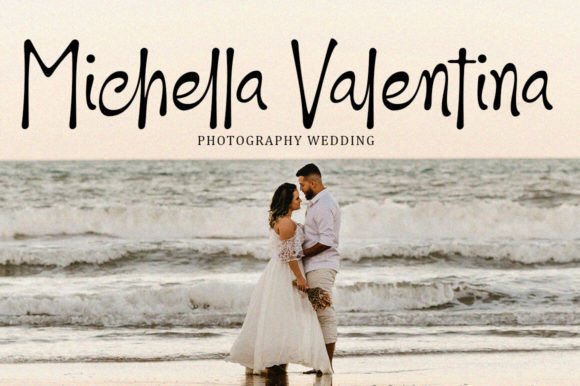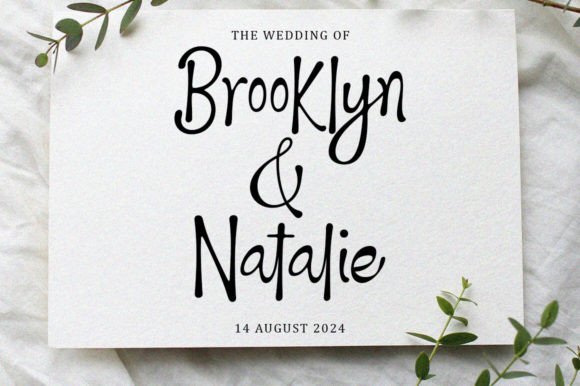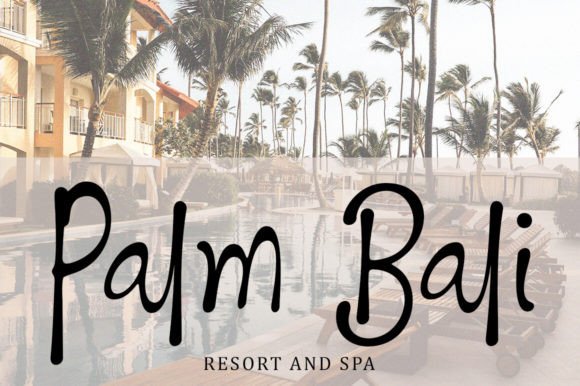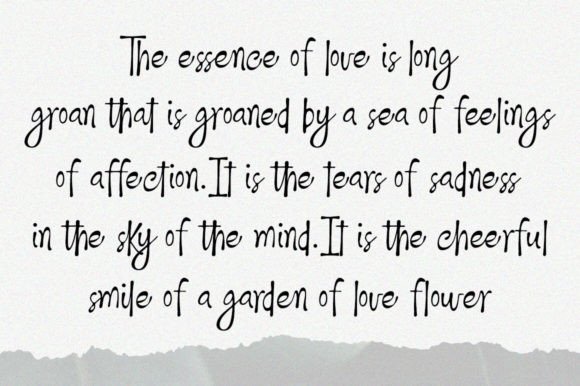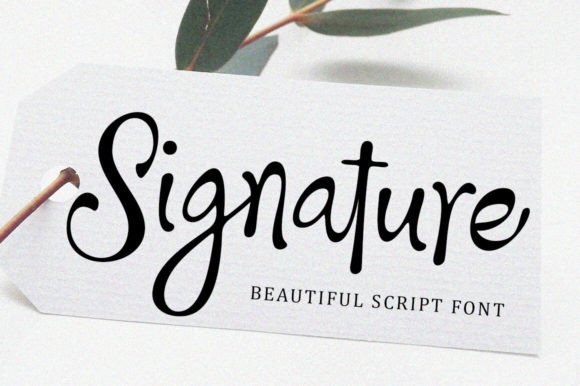
The Power of Handwritten Charm: Introducing Authentic Signature Font
Have you ever stared at a beautiful piece of art, trying to capture the essence of the brushstrokes that brought it to life? That’s exactly the magic we’re aiming for with the Authentic Signature Font. This lovely and timeless handwritten font is designed to add a personal touch to your designs, making them truly unforgettable.
| 👤 Author | Romie Creative |
Authentic Signature Font is more than just a font – it’s a way to express your unique voice and style. Whether you’re creating a logo, branding, or a quote, this font will bring a sense of authenticity and warmth to your work. Its unique, beautiful touch will make your design come alive, setting it apart from the crowd.
For designers, the Authentic Signature Font is a valuable tool in their creative arsenal. It offers a level of customization and personality that’s hard to find in other fonts, allowing you to create truly one-of-a-kind designs that reflect your vision and style.
Authentic Signature Font Key Features
- Character Count: 400+ unique characters, including Latin, Cyrillic, and Greek alphabets
- Size: 4 styles: 24pt, 36pt, 48pt, and 60pt, each with 5 weights (Thin, Light, Regular, Bold, Black)
- Unique Characteristics: Authentic, handwritten feel with subtle imperfections and texture, perfect for personal and business signatures
- Resolution: High-resolution fonts, suitable for print and digital use, including social media profiles and websites
- Font Width: Adjustable width, allowing for customization to fit any signature or text area
Authentic Signature Font Review
I recently had the chance to work with the Authentic Signature Font, and here’s my honest take on it.
- Unique and Creative Touch: This font offers a unique, handwritten feel that can add a touch of personality to your designs.
- High-Quality Design: The font is well-designed, with smooth lines and a consistent aesthetic that makes it perfect for logos, quotes, and other typography-heavy projects.
- Limited Font Options: While the font itself is unique, the overall design is relatively simple, which may limit its versatility in certain projects.
- Lack of Variations: The font comes in a limited range of weights and styles, which may not be suitable for complex or detailed designs.
- May Not be Suitable for Small Text: Due to its handwritten nature, the font may become illegible when used in small text sizes.
Overall, I think the Authentic Signature Font is a great choice for designers looking to add a touch of personality to their work. While it may have some limitations, its unique design and high-quality construction make it a valuable addition to any designer’s toolkit.
The Authentic Signature Font is commonly used for:
Personal branding and signature designs.
Business cards and letterheads.
Wedding invitations and event materials.